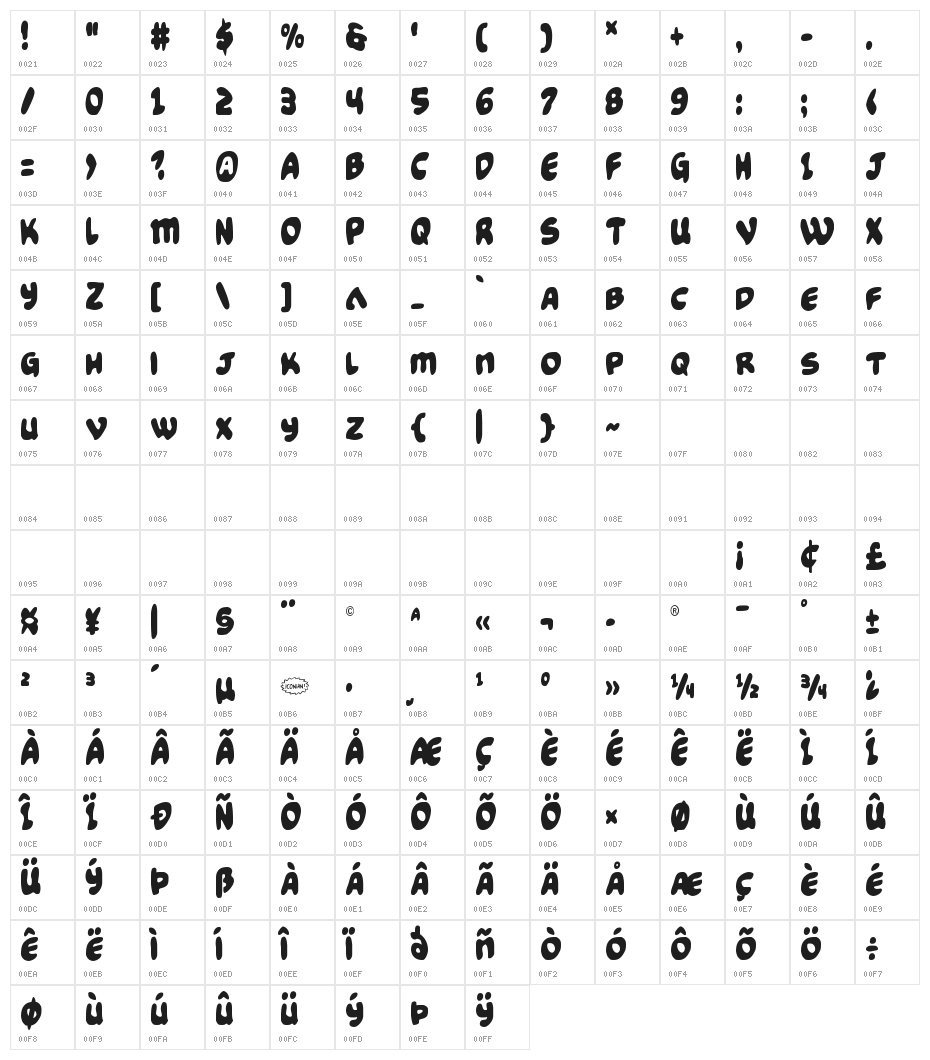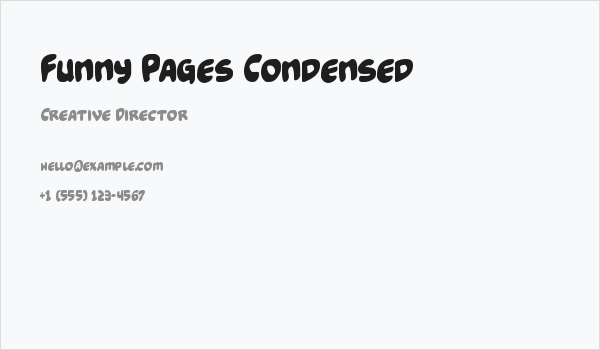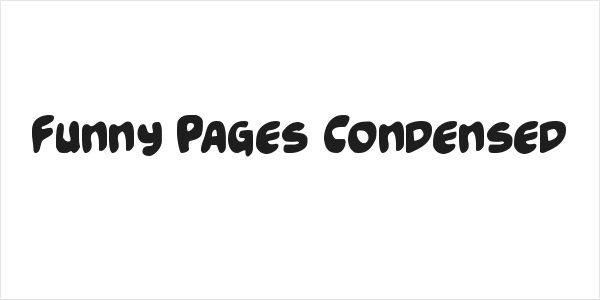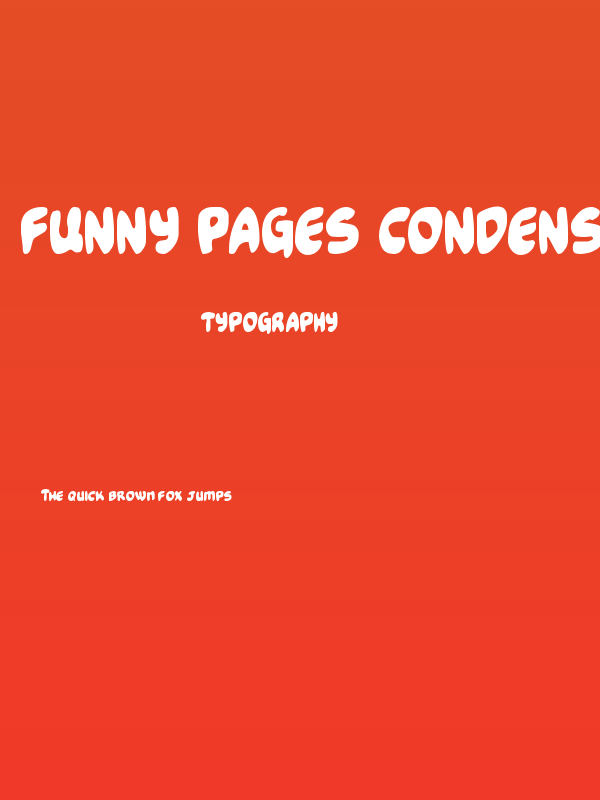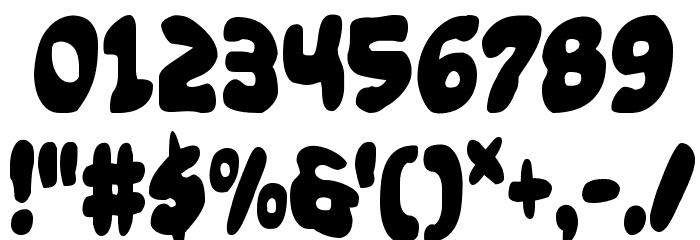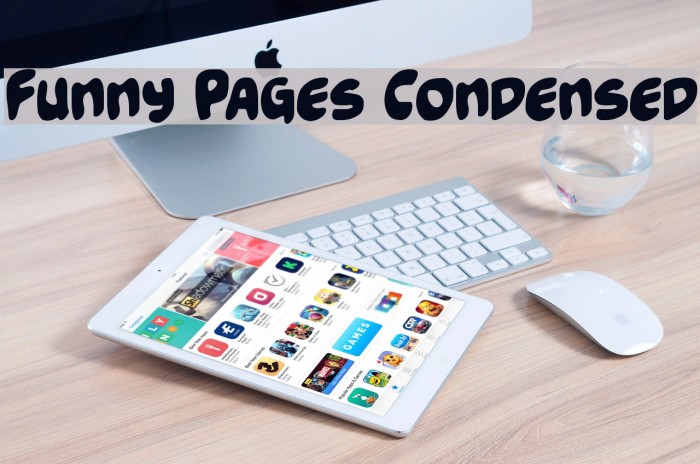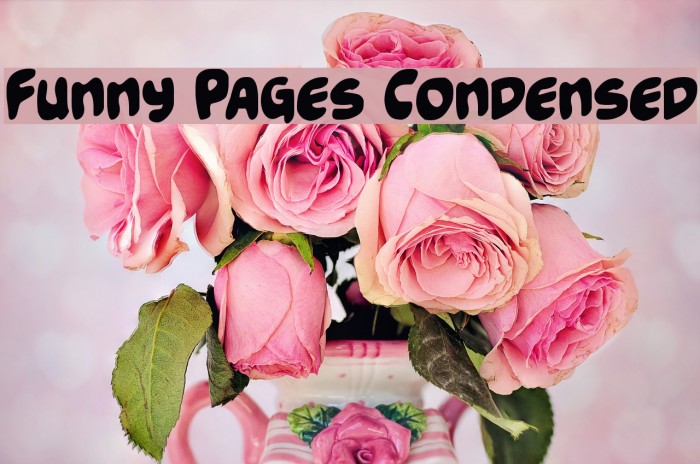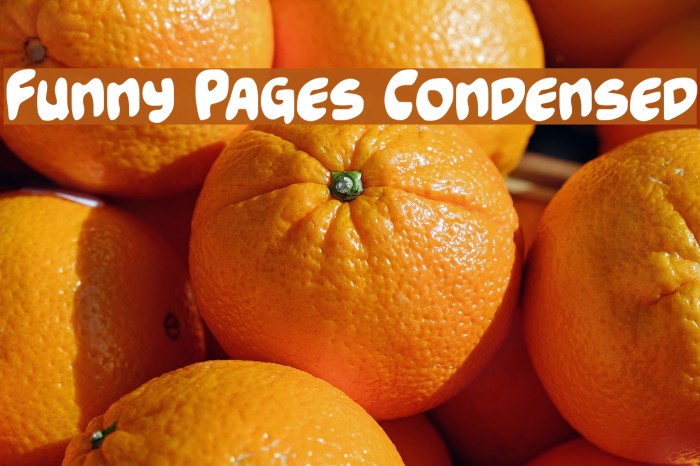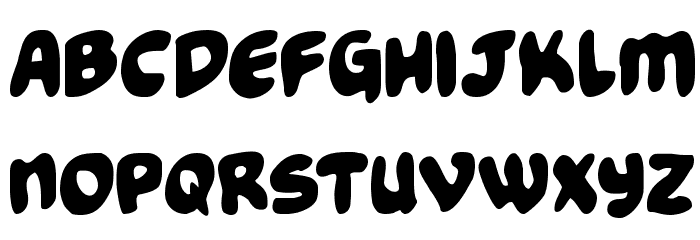
Funny Pages Condensed Font
Funny Pages Condensed Description
This playful and bold font features a condensed style with a whimsical, cartoon-like appearance. The characters are rounded and thick, giving them a bubbly and friendly look. The uppercase and lowercase letters maintain a consistent style, with exaggerated curves and a slightly uneven baseline that adds to the font's charm. The numbers and special characters follow the same design principles, ensuring a cohesive look across all glyphs. This font is perfect for projects that require a fun and informal touch, such as children's books, comic strips, or playful branding.